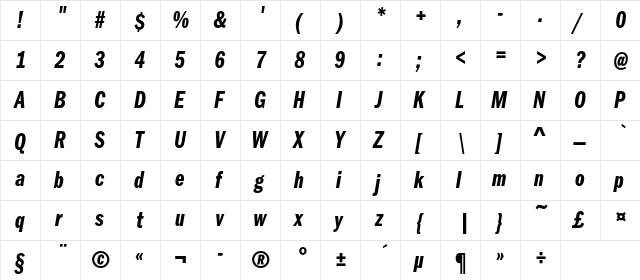
FranklinGothicDemiCmpC Italic
Design Context for FranklinGothicDemiCmpC Typeface
FranklinGothicDemiCmpC has the quiet confidence of well-executed sans-serif typography: versatile, unobtrusive, and dependable at any size. The slanted form adds forward momentum and visual energy.
Font Pairing: Works well alongside a characterful serif or display font that can carry the expressive load while FranklinGothicDemiCmpC handles the functional copy.
Pro Tip: Use FranklinGothicDemiCmpC for UI labels, navigation, and short-form body copy where clean legibility is the priority.